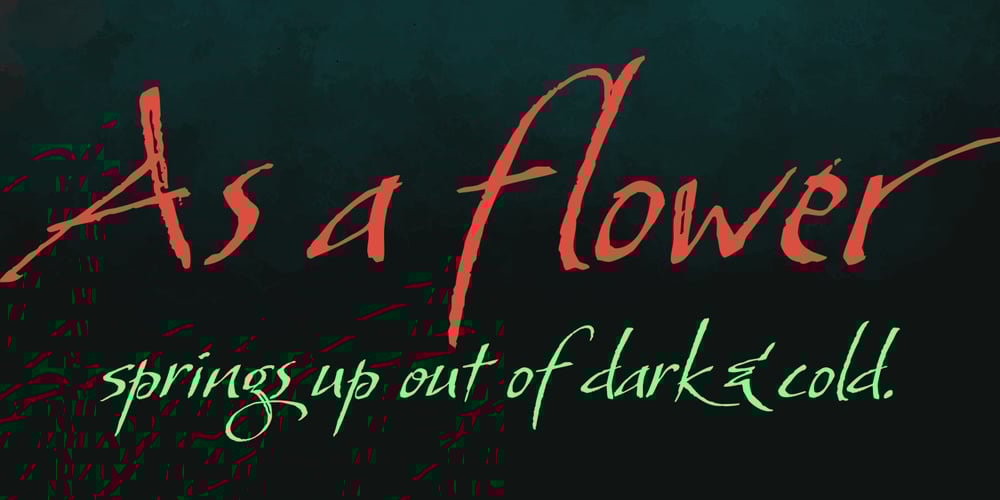
So Lovely Font Family was designed by Neil Summerour and published by Positype. So Lovely contains 1 styles and family package options. Effortless, personal, nonchalant. So Lovely just slides into the room, without a care in the world, flowing from one letter to the next. This simple typeface has a secret—behind that nonchalant attitude is a ton of Stylistic, Swash, and Titling Alternates. It even contains 44 special ligature combinations to insure you have the smoothest entrance possible. So Lovely is the third release of the Positype Relaxed Script Collection of typefaces—all focused on fluid, effortless script fonts for simple use.